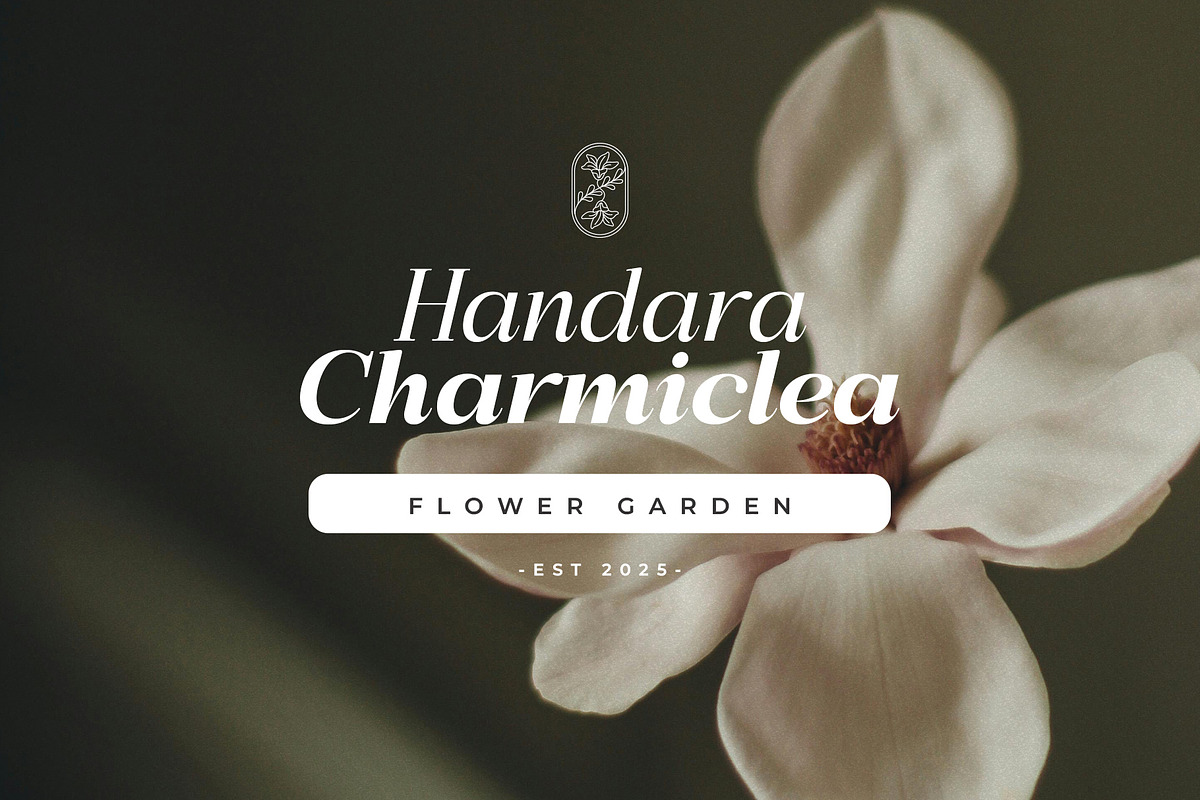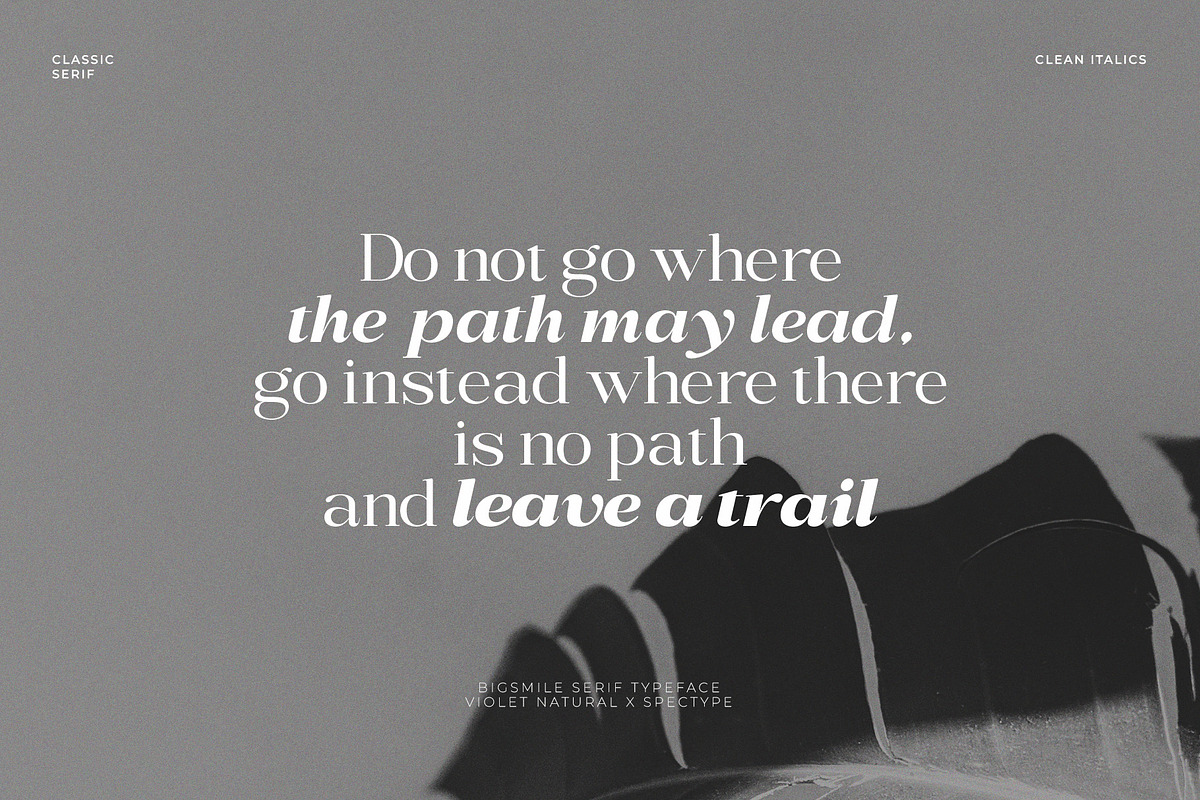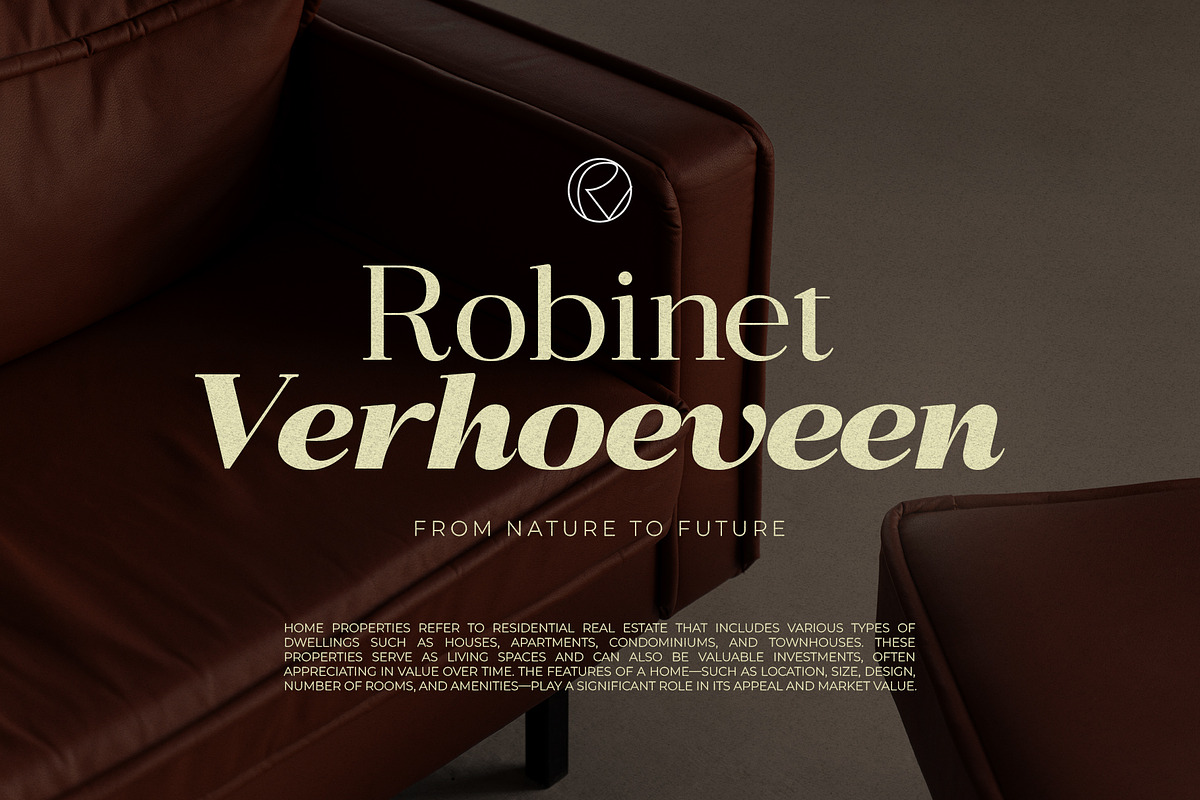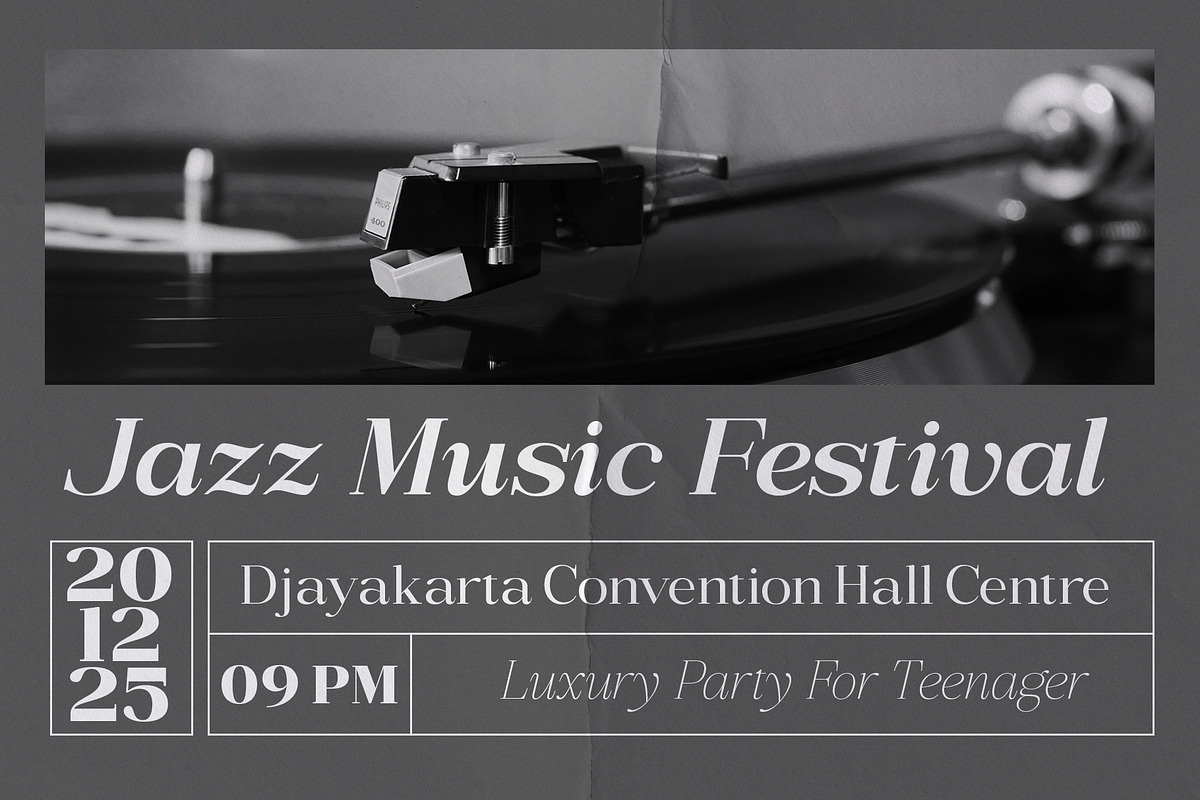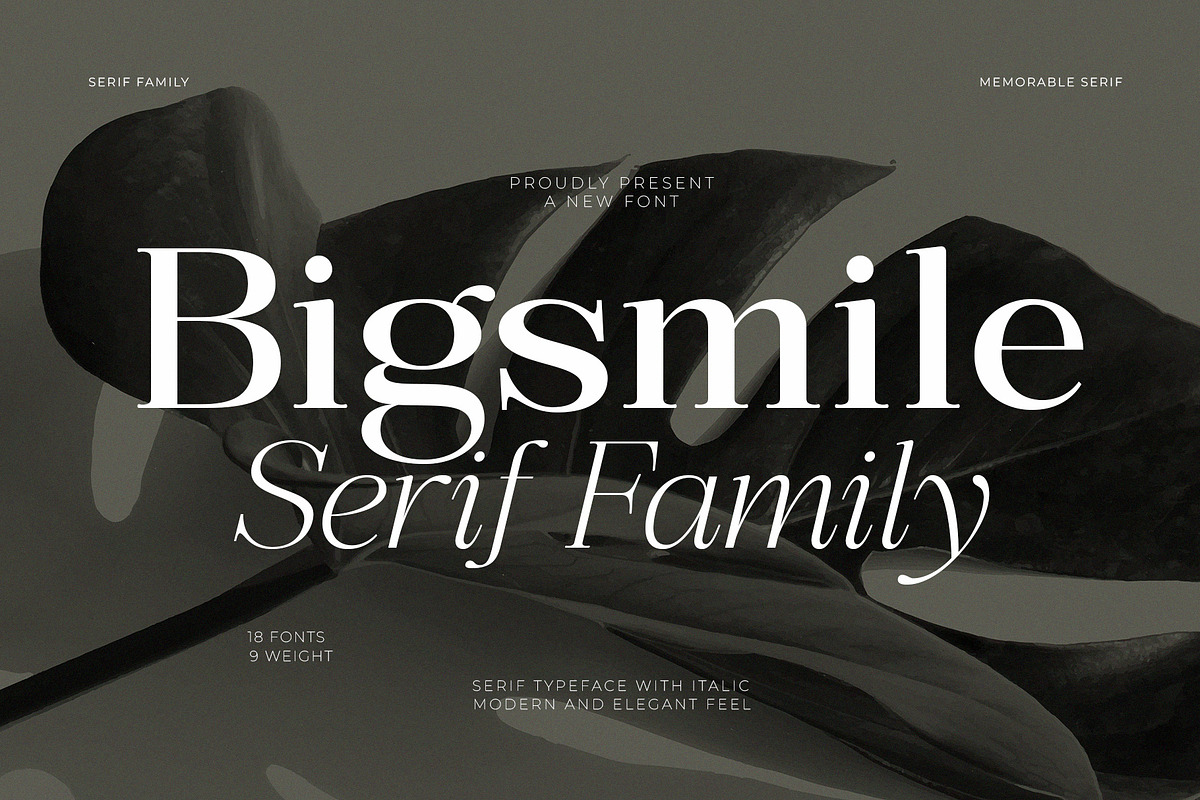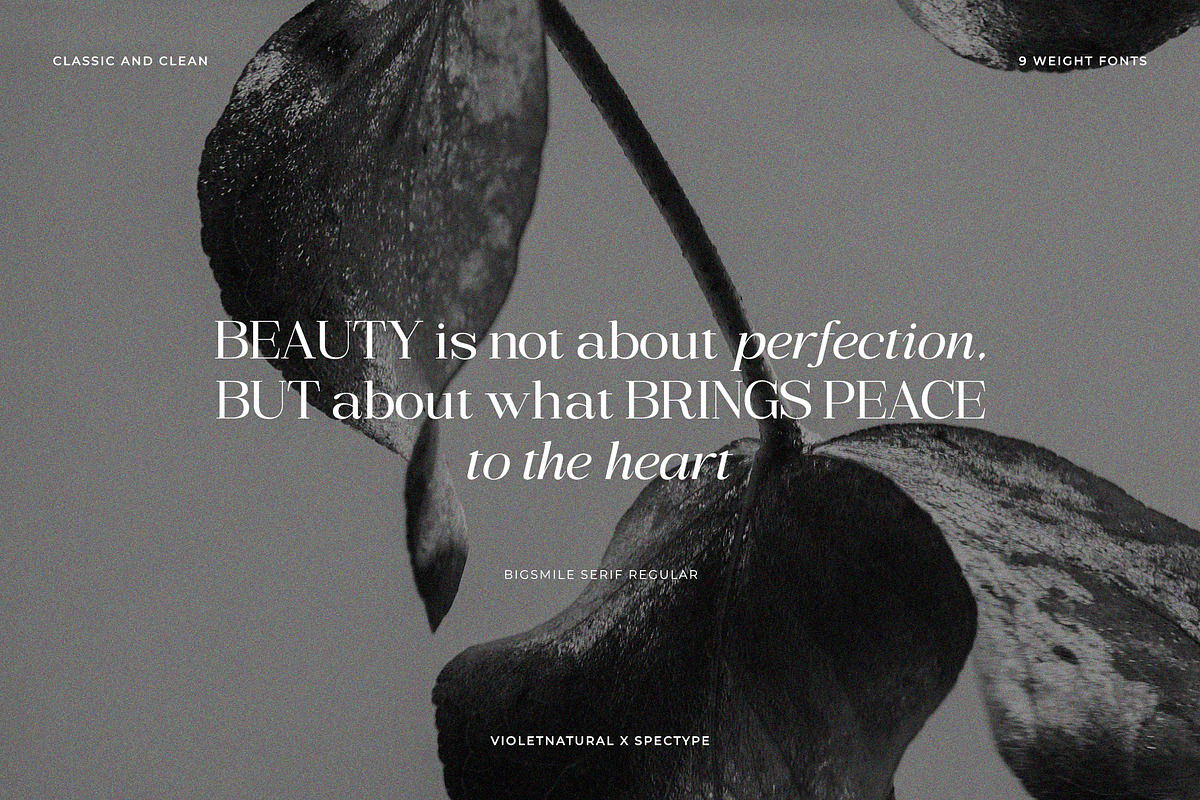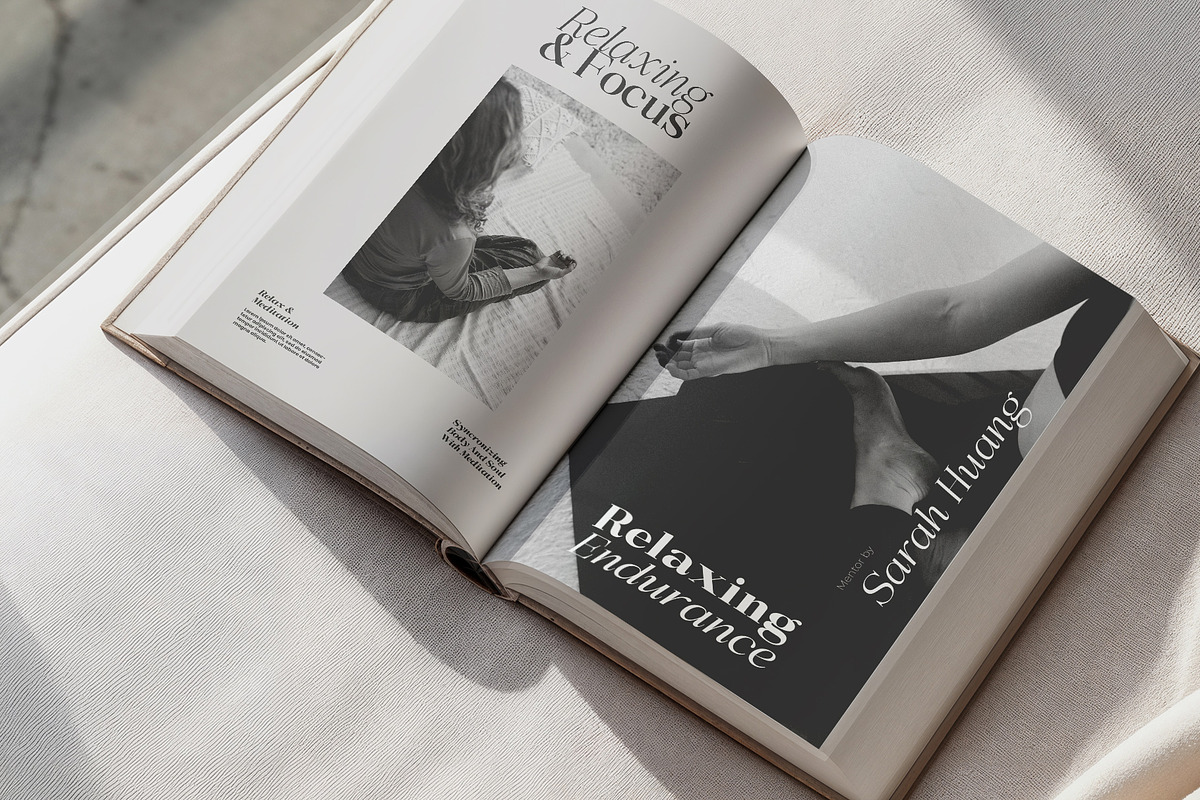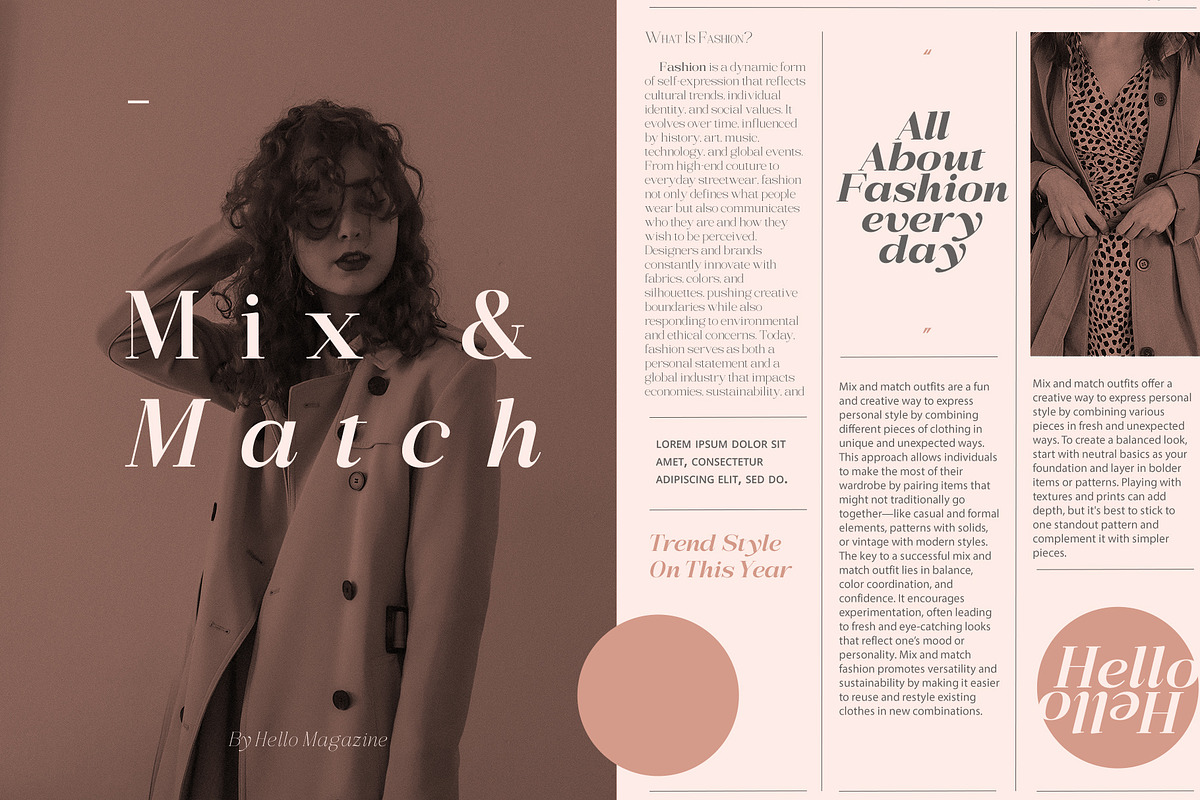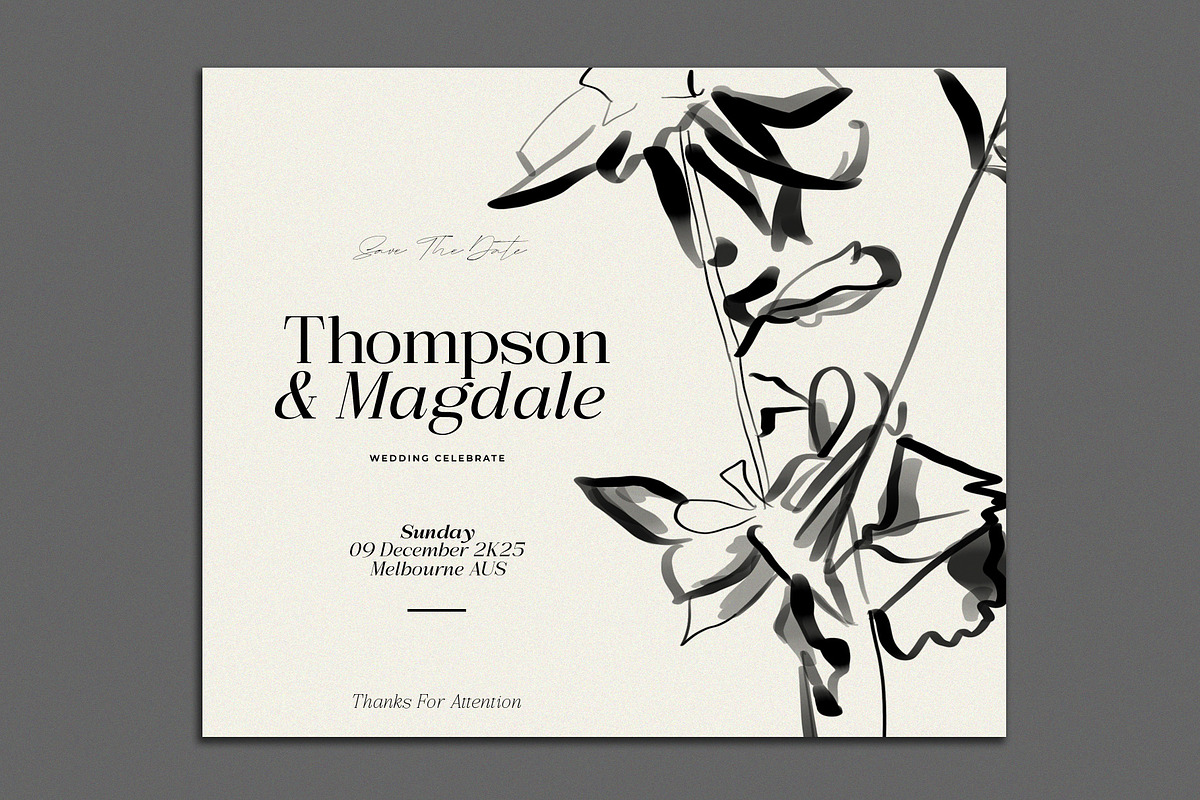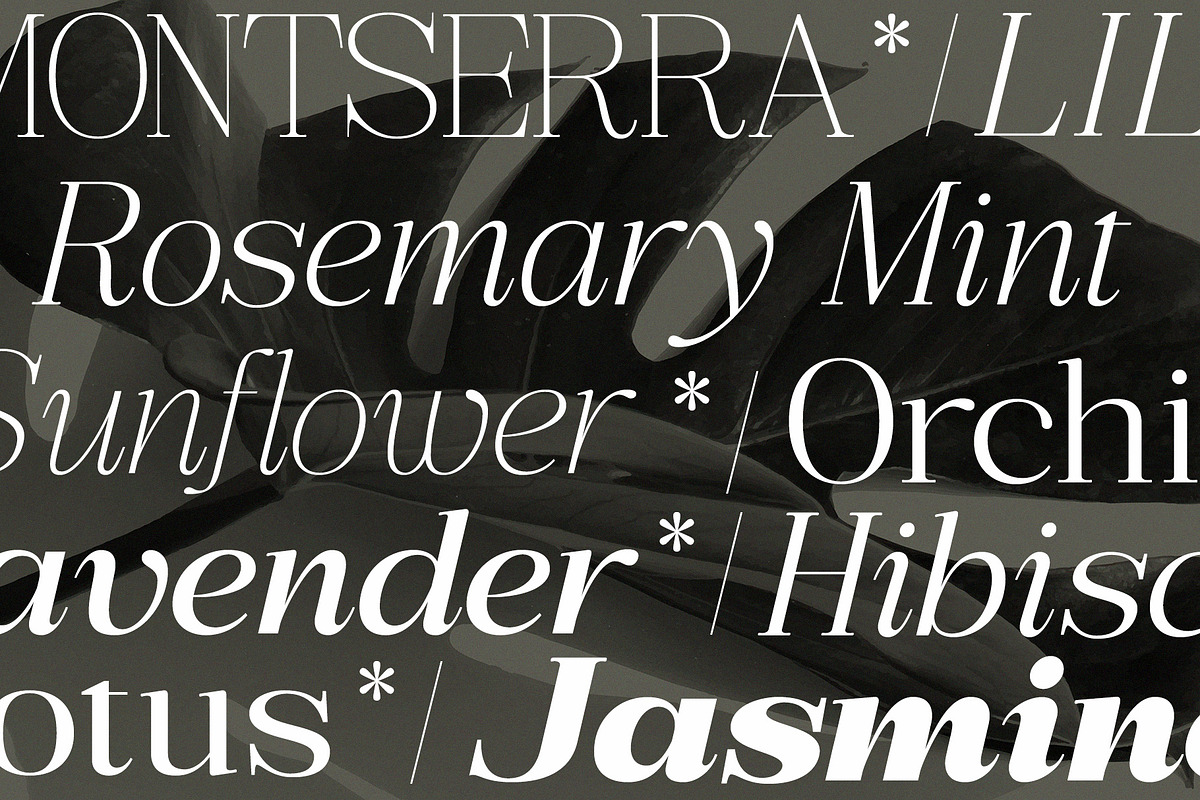
Bigsmile Serif Family
Introducing the Bigsmile Serif Family Typeface — a beautifully crafted typeface that blends classic elegance with a clean and modern aesthetic. With its strong personality and refined structure, Bigsmile adds a dynamic and sophisticated touch to any creative project. Designed with precision and attention to detail, this font family consists of 18 unique styles, each thoughtfully paired with its own italic variation, offering great versatility and flexibility.
Whether you're working on bold titles, striking headlines, narrative text, or even branding elements like logos and monogram letters, Bigsmile delivers a polished and expressive result. Its smooth curves and balanced proportions make it ideal for both digital and print media, bringing a sense of clarity and creativity to your work. We hope you enjoy exploring the potential of Bigsmile in your designs — stay inspired and keep creating!